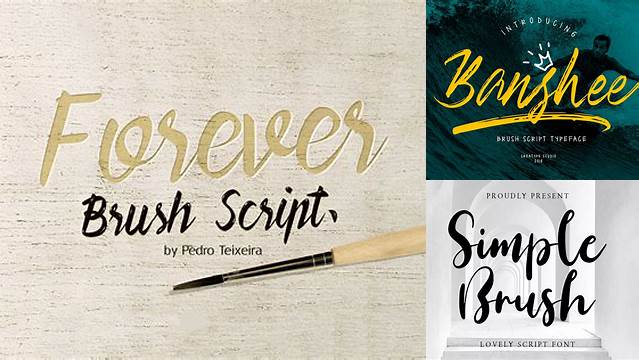
Free Poster Brush Script Fonts: Download Now!
Are you looking to add a unique and eye-catching touch to your design projects? A poster brush script font might be just what you need! These fonts are perfect for creating a hand-lettered, artistic feel, ideal for posters, invitations, branding, and more. Guys, in this article, we'll explore the world of poster brush script fonts, where to find them for free, and how to use them effectively in your designs. Let's dive in and unleash your creative potential!
What is a Poster Brush Script Font?
When we talk about poster brush script fonts, we're referring to typefaces that mimic the look of handwriting created with a brush or marker. These fonts typically feature flowing strokes, varying thicknesses, and a natural, imperfect quality that adds character and charm. Unlike traditional sans-serif or serif fonts, brush scripts have a more organic and personal feel, making them excellent for designs that need a touch of authenticity or artistry. The beauty of a poster brush script font lies in its ability to convey emotion and personality. The strokes and curves can be bold and energetic or soft and delicate, depending on the specific font style. This versatility makes them suitable for a wide range of projects, from edgy posters to elegant wedding invitations. One of the defining characteristics of a poster brush script font is its inherent expressiveness. The slight imperfections and variations in stroke weight give the font a handmade quality that resonates with audiences. This is particularly effective in designs aiming for a human touch, such as branding for artisanal products or promotional materials for creative events. The free-flowing nature of brush script fonts allows designers to create layouts that feel less structured and more dynamic. This can be a powerful tool for drawing attention and creating a visual hierarchy that guides the viewer's eye. The varying thickness of strokes in a brush script can create natural emphasis, while the curves and swashes add a flourish of elegance. The impact of a poster brush script font on a design cannot be overstated. It's not just about choosing a font; it's about selecting a typeface that embodies the spirit and message of your project. The right brush script can transform a simple layout into a captivating visual experience, inviting viewers to connect with the design on a deeper level. When choosing a poster brush script font, consider the context of your project. For instance, a bold, energetic script might be perfect for a concert poster, while a more delicate script could be ideal for a wedding invitation. The font's style should complement the overall aesthetic and message you're trying to convey. Understanding the nuances of brush script fonts—the varying stroke weights, the presence of swashes, and the overall personality—is essential for effective design. By carefully selecting and using these fonts, designers can create visually stunning pieces that leave a lasting impression.
Why Use a Brush Script Font for Your Posters?
So, why should you even consider using a brush script font for your posters? Well, guys, there are tons of reasons! First off, they add a personal and unique touch that other fonts simply can't match. Think about it: a brush script looks like it was handwritten, giving your poster an authentic and artistic vibe. This can be super effective for grabbing attention, especially in a world where everything feels so digital and polished. Imagine you’re designing a poster for a local music gig. A poster brush script font can instantly convey the raw, energetic feel of the performance. It suggests a hands-on, grassroots event, appealing to those looking for an authentic experience. This contrasts sharply with the sterile, corporate look of many other font choices. Furthermore, brush script fonts are incredibly versatile. You can use them for a wide range of themes and styles, from vintage and retro to modern and edgy. They're perfect for posters promoting events, products, or even just spreading a message in a creative way. The flowing lines and dynamic strokes of a poster brush script font can create a sense of movement and excitement on your poster. This is particularly useful for posters that need to stand out in busy environments, such as on a crowded street or a cluttered bulletin board. The visual energy of the script naturally draws the eye and makes the message more memorable. Another key advantage of using a brush script font is its ability to evoke emotion. The handmade quality of the font connects with viewers on a personal level, creating a sense of warmth and authenticity. This is especially effective for posters that aim to inspire or create an emotional connection, such as those promoting charitable causes or community events. Moreover, a well-chosen brush script can significantly enhance the overall design aesthetic of your poster. It can act as a visual anchor, drawing the elements of the design together and creating a cohesive look. The font can complement other design elements, such as images and colors, to create a harmonious and visually appealing composition. Think about a poster for a coffee shop. A brush script font can convey the cozy, artisanal atmosphere of the café, inviting customers to come in and relax. The font's organic lines and imperfect strokes suggest a personal touch, aligning with the café's commitment to quality and craftsmanship. Using a poster brush script font can also help you create a unique brand identity. Consistency in font choice across your posters and other marketing materials can reinforce your brand's personality and make it instantly recognizable. This is particularly important for small businesses and creative ventures looking to establish a distinct identity in the marketplace. In essence, the choice to use a poster brush script font is a strategic one. It’s about leveraging the font’s unique qualities to create a poster that not only looks good but also effectively communicates your message and resonates with your audience. So, go ahead and explore the possibilities—you might just find that a brush script font is the perfect ingredient for your next poster masterpiece.
Creative Market (Free Goods): Creative Market is a marketplace for design assets, but they also have a section where they offer free goods every week. You might just stumble upon a fantastic poster brush script font in their freebies! Creative Market is known for its high-quality design resources, including fonts, graphics, and templates. The platform operates on a marketplace model, where independent designers and studios sell their creations. The free goods section is a rotating selection of premium resources offered at no cost for a limited time. This presents an excellent opportunity to acquire professional-grade assets without spending any money. The fonts available in the free goods section often include extended licensing options, making them suitable for commercial projects. Creative Market's focus on quality and design excellence makes its free goods selection a must-check for designers looking to expand their font library. The platform also offers a vast collection of paid fonts, graphics, and other resources, providing a comprehensive solution for design needs. By regularly checking the free goods section, designers can discover new and inspiring assets that enhance their creative workflow.
Behance: While Behance isn't strictly a font website, it's a platform where designers often share their work, including free fonts. Search for "free brush script font" and you might find some hidden gems. Behance is Adobe's online platform for showcasing and discovering creative work. It serves as a portfolio platform for designers, artists, and photographers, allowing them to share their projects and receive feedback from the community. While not primarily a font repository, Behance often features designers who create and share free fonts as part of their portfolio. Searching for specific font types, such as “free brush script font,” can reveal unique and high-quality typefaces. Behance’s focus on visual presentation makes it an excellent place to discover fonts in context, seeing how they are used in real-world design projects. The platform’s social features, such as likes and comments, provide a way to engage with designers and ask questions about their fonts. Behance is also a valuable resource for inspiration, showcasing a wide range of design styles and techniques. By exploring Behance, designers can not only find free fonts but also connect with talented creators and stay up-to-date with the latest design trends. The platform’s integration with Adobe Creative Cloud makes it a seamless part of the design workflow for many professionals.
Remember, guys, always double-check the license before using a font to make sure it's okay for your intended purpose. Happy font hunting!
Tips for Using Brush Script Fonts Effectively
So, you've found the perfect brush script font – awesome! But now what? Guys, using a brush script effectively is an art in itself. It's not just about slapping it on your poster and hoping for the best. There are a few key things to keep in mind to make sure your font choice really shines and your design looks professional. Let's go over some essential tips for using brush script fonts effectively.
So, guys, there you have it! A comprehensive guide to finding and using poster brush script fonts for free. These fonts are an incredible way to add a personal, artistic touch to your designs, and with the resources available online, there's no limit to what you can create. Whether you're designing posters, invitations, or branding materials, a well-chosen brush script can make all the difference. Just remember to check those licenses, use them sparingly, and always prioritize legibility. Now go forth and create something amazing!